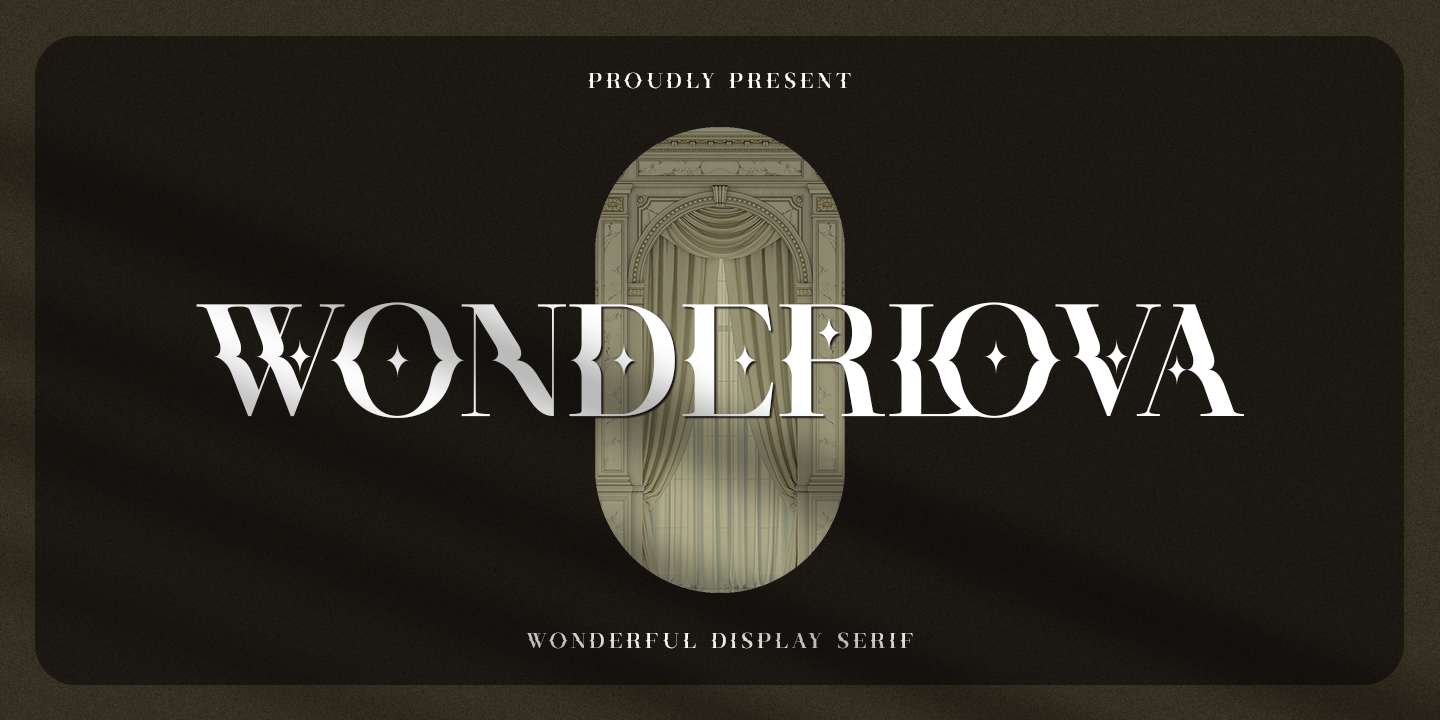
Wonderlova Font is perfect for children's book illustrations, whimsical greeting cards, playful toy packaging, magical themed events, fantasy game graphics, fairytale wedding invitations, creative storytelling projects, and enchanting brand identities. This charming typeface excels in imaginative design applications, magical storytelling projects, and any creative work requiring wonder-filled aesthetics that captivate audiences with delightful charm.
What makes Wonderlova Font exciting is its magical ability to infuse any design with childlike wonder and enchanting charm that instantly creates emotional connections with viewers. The font features whimsically crafted letterforms with playful curves and delightful character variations that evoke feelings of joy and imagination, making it ideal for brands seeking to create memorable experiences that spark wonder and delight. Its enchanting personality ensures instant recognition and emotional engagement.
Wonderlova Font family includes multiple weights and styles: Regular, Bold, Light, Medium, Italic variations, and decorative alternates with magical flourishes and playful embellishments. Each family member maintains the distinctive whimsical character while offering versatile design options for complex storytelling layouts, from gentle narrative text to captivating headlines that transport readers into magical worlds.
Whether you're designing children's entertainment materials or creating fantasy-themed marketing campaigns, Wonderlova Font Free Download provides the perfect typography solution for magical storytelling needs. This font transforms ordinary text into enchanting visual narratives that communicate wonder and imagination. Creative storytellers and family-focused brands choose this typeface for its ability to convey magical experiences through delightfully crafted letterforms that inspire dreams and capture hearts.